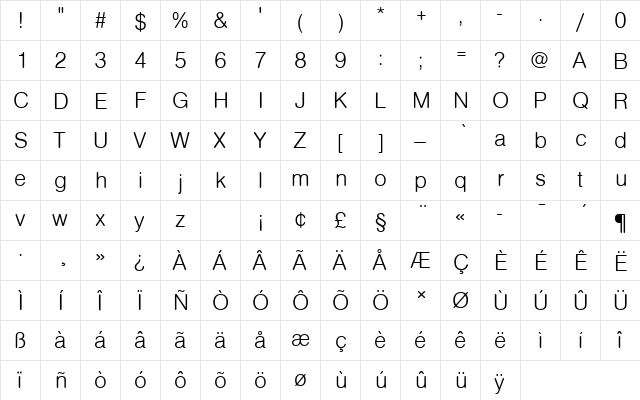
NimbusSanDLigRo1 Regular
Design Context for NimbusSanDLigRo1 Typeface
NimbusSanDLigRo1 offers clean, dependable letterforms without strong stylistic allegiance, making it a practical choice for designers who need flexibility.